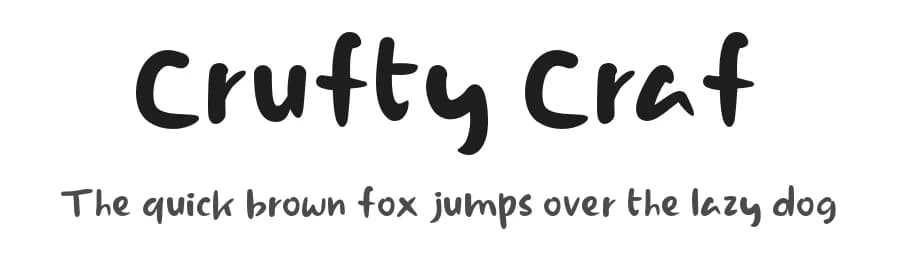
About Crufty Craf Font
Crufty Craf is a script & handwritten font designed by Joko Setiono. It includes 228 glyphs, a regular weight, OTF (CFF) format, and 217 languages. Crufty Craf is free to download; check the license details on this page before commercial use. Script & handwritten fonts like Crufty Craf work best for wedding invitations, greeting cards, signatures, and elegant branding.
Crufty Craf Font is a script font that shines as a display or heading face. Pair it with a clean sans-serif or serif font for body text β the contrast creates a clear hierarchy while the two styles stay balanced and easy to read.
Crufty Craf Font
by Joko Setiono